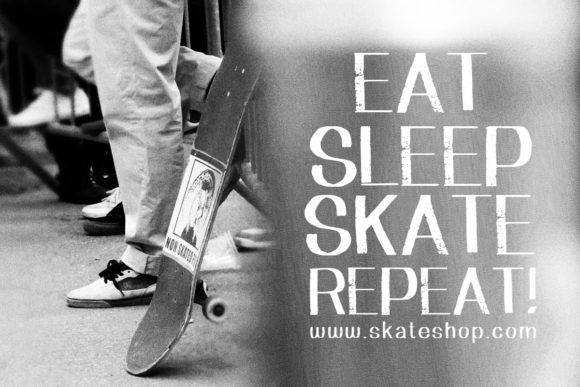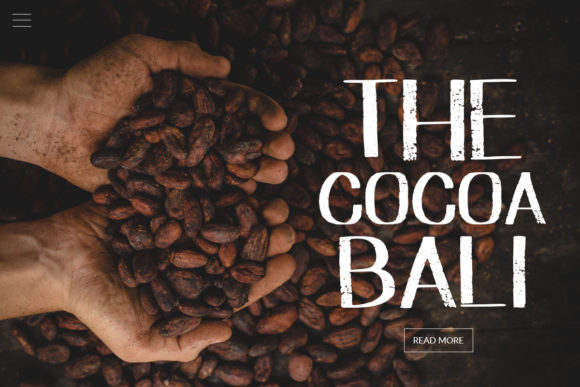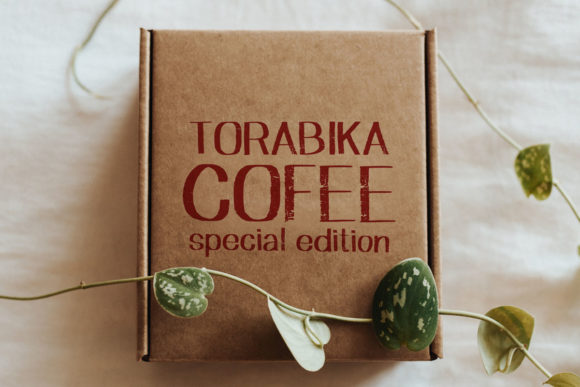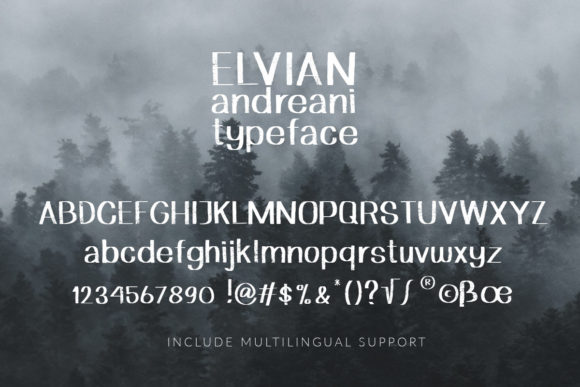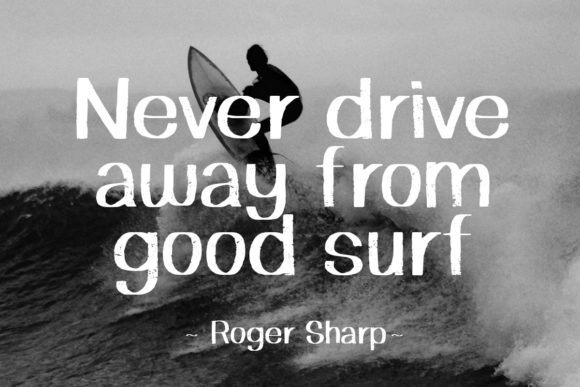
Introducing Elvian Andreani Font: A Raw and Organic Handwritten Sans Serif
Are you tired of using the same old fonts in your designs? Look no further than Elvian Andreani Font, a unique and captivating handwritten sans serif font that evokes associations with nature, calmness, and sincerity. In this article, we’ll dive into the world of Elvian Andreani Font, exploring its features, benefits, and uses, and why it’s a must-have for designers and crafters.
The Inspiration Behind Elvian Andreani Font
Elvian Andreani Font is the brainchild of talented font designer, Elvian Andreani. With a passion for creating unique and functional fonts, Elvian drew inspiration from the natural world to craft a font that exudes calmness, sincerity, and a sense of organic charm. The result is a font that stands out from the crowd, perfect for designers looking to add a touch of personality to their work.
Key Features of Elvian Andreani Font
So, what makes Elvian Andreani Font so special? Here are some of its key features:
- Raw and Organic: Elvian Andreani Font boasts a raw, handwritten quality that gives it a unique, one-of-a-kind feel.
- Handwritten Sans Serif: This font combines the warmth of handwritten script with the cleanliness of sans serif typography.
- Nature-Inspired: The font’s organic feel and flowing lines evoke associations with the natural world.
- Calm and Sincere: Elvian Andreani Font exudes a sense of calmness and sincerity, perfect for designs that require a touch of warmth and personality.
Benefits of Using Elvian Andreani Font
So, why should you choose Elvian Andreani Font for your next design project? Here are just a few benefits:
- Stand Out from the Crowd: With its unique, handwritten quality, Elvian Andreani Font is sure to make your designs stand out.
- Add a Touch of Warmth: This font’s organic feel and calm demeanor add a touch of warmth to any design.
- Perfect for Branding: Elvian Andreani Font is ideal for branding projects that require a personal, human touch.
- Versatile: This font can be used in a wide range of design applications, from logos and headings to body text and more.
Who Can Benefit from Elvian Andreani Font?
Elvian Andreani Font is a versatile font that can be used by a wide range of designers and crafters, including:
- Graphic Designers: Add a touch of personality to your designs with this unique font.
- Branding Experts: Use Elvian Andreani Font to create memorable, human-centered brand identities.
- Web Designers: Add a touch of warmth and personality to your website designs.
- Crafters: Use Elvian Andreani Font to add a personal touch to your handmade crafts, such as journals, planners, and more.
In conclusion, Elvian Andreani Font is a unique and captivating handwritten sans serif font that offers a fresh alternative to traditional typography. With its raw, organic feel and calm demeanor, this font is perfect for designers and crafters looking to add a touch of personality to their work. Whether you’re a graphic designer, branding expert, web designer, or crafter, Elvian Andreani Font is a must-have addition to your font library.